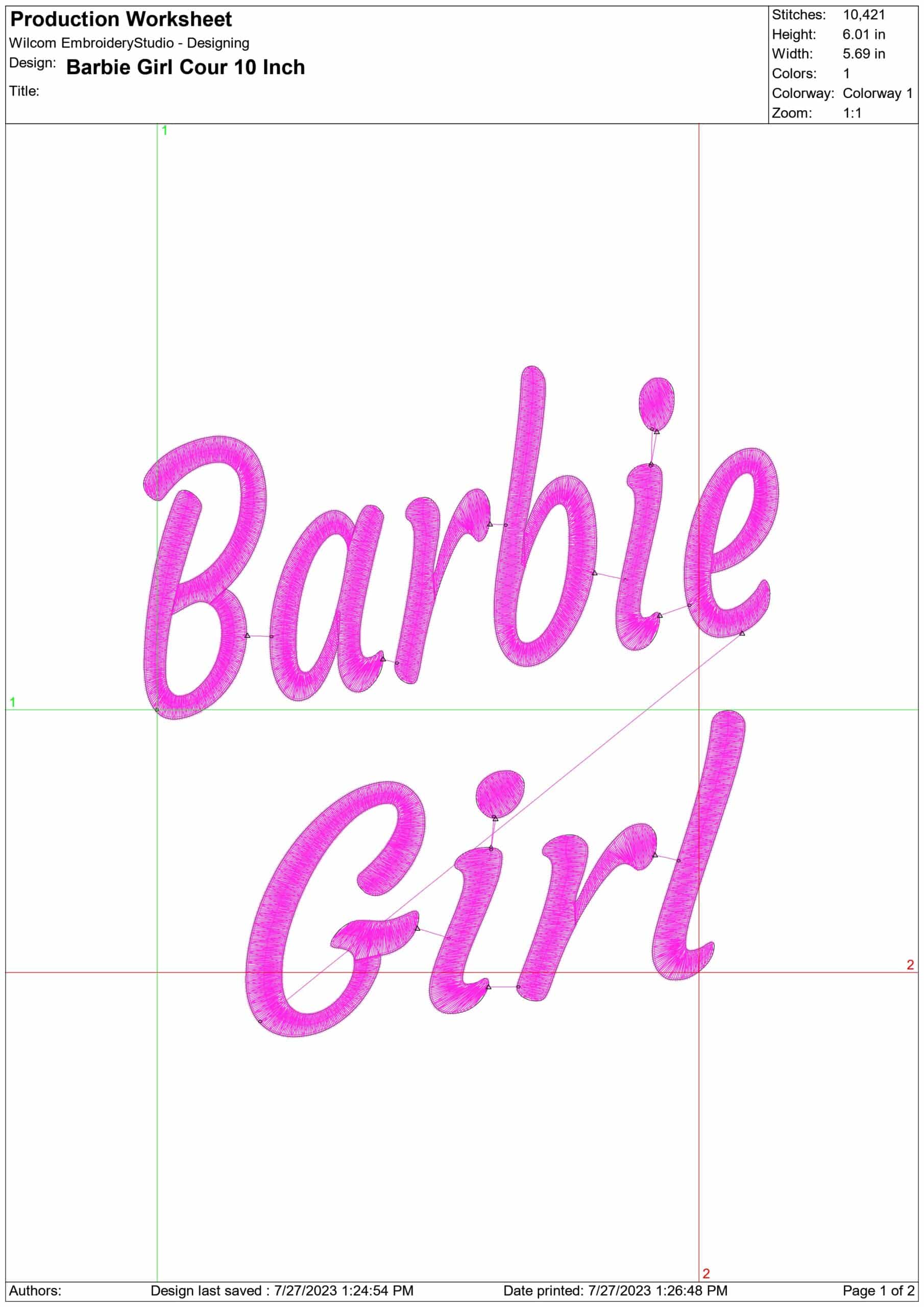
Soft pink Barbie Girl script adds a playful, polished statement to tees, bags and sleepwear with a clean modern look.
Add playful pink style to a simple outfit with this Barbie Girl text embroidery design. The lettering is stitched in a modern handwritten script, arranged over two lines so the phrase feels balanced and easy to read. It suits women’s and girls’ makes especially well, whether you are personalising a casual top or adding a feminine touch to an accessory.
This design works particularly nicely on T-shirts, hoodies, denim jackets, canvas tote bags and make-up pouches where the pink script can stand out against plain fabric. Because the artwork is just the phrase itself, it gives a clean statement without crowding the garment, making it useful for a chest placement, pocket area or the centre of a shopper bag. The smooth cursive look gives everyday pieces a more styled, boutique feel while still keeping the finish light and modern.